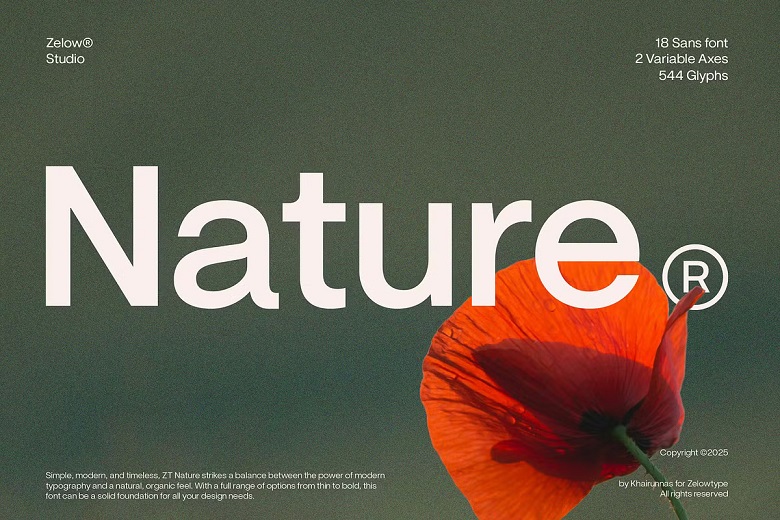
ZT Nature Font Family
ZT Nature is a new modernists sans serif font that blends geometric accuracy with a feeling of rhythm. It is so created that it can be used both in print and digital setting in order to ensure clarity, neutrality and flexibility without losing its unique nature. ZT Nature, a consistent flexible typeface designed as a work tool that is adaptable to the needs of designers, is suitable as a tool of communication in the modern world.
The family offers 18 styles, between Thin and Black, and 2 adjustable axes to have both the weight and width in full control. This also makes it appropriate to all systems such as branding systems, editorial layouts, user interfaces as well as digital products. It has a structure which is based on rational forms but softened with natural curves that makes it more legible and welcoming.
The typeface includes 544 glyphs, and which covers long Latin languages, symbols and typographic characters useful in the professional field. It has been designed with consideration in an expression of optical balance at all weights, which makes ZT Nature a prince in big-screen presentation and heavy text presentation.
ZT Nature Sans Serif Font Family